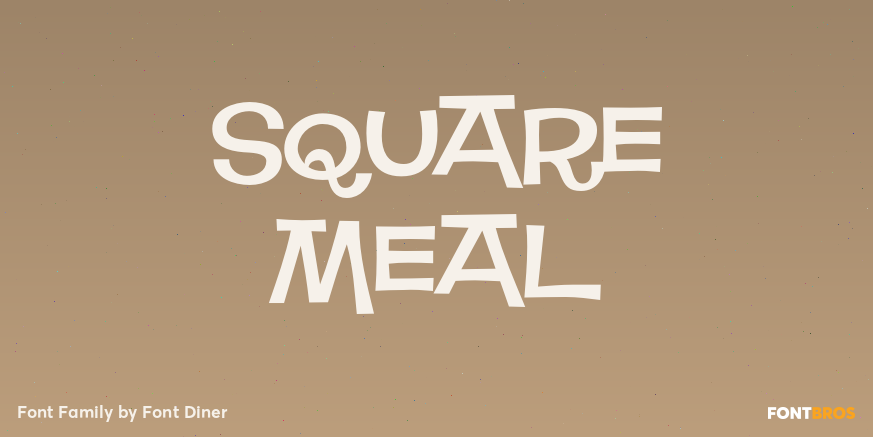
Square Meal
About Square Meal
Looking for a square deal? Then get Square Meal, a Saul Bass inspired 1950s style casual interlock that\’s sure to make \’em smile!